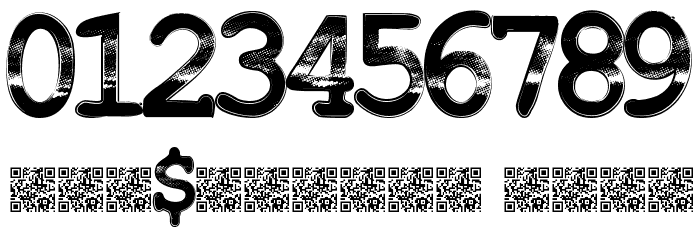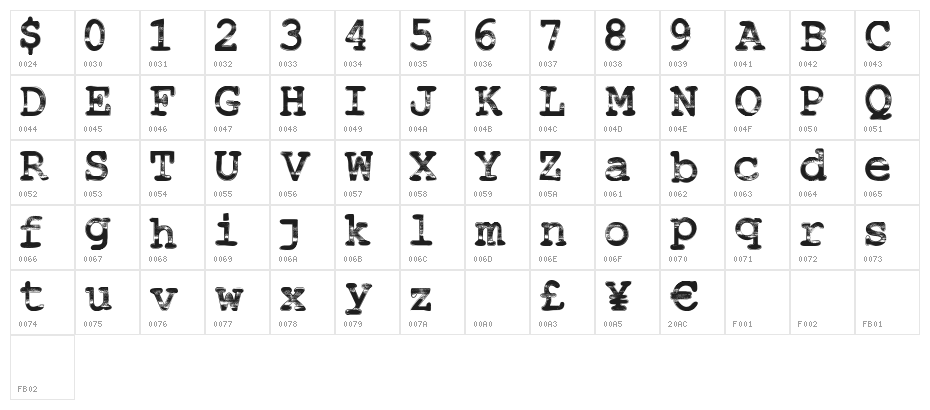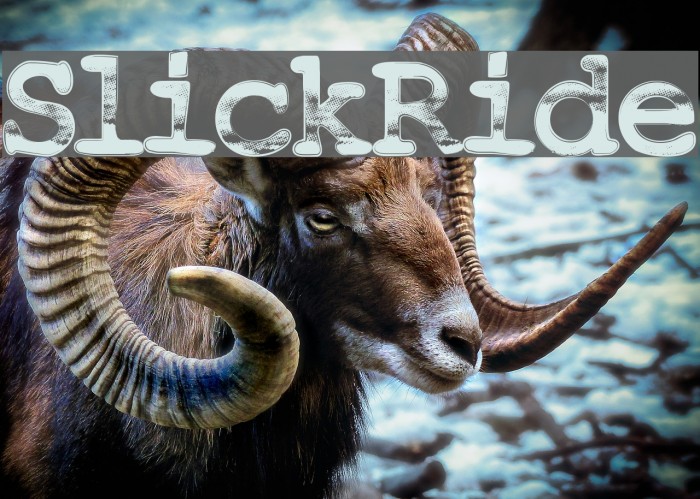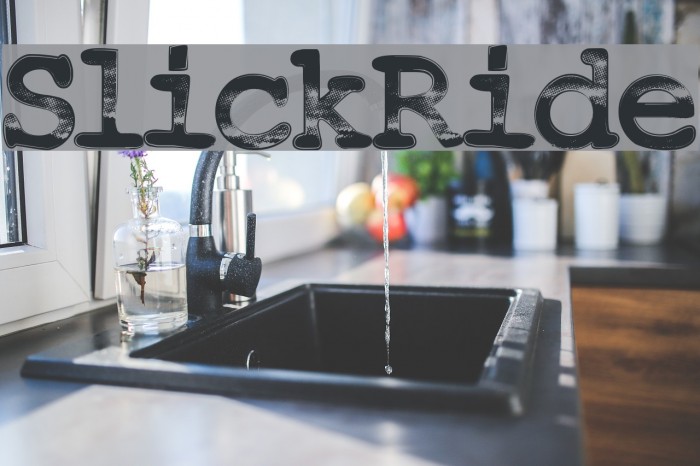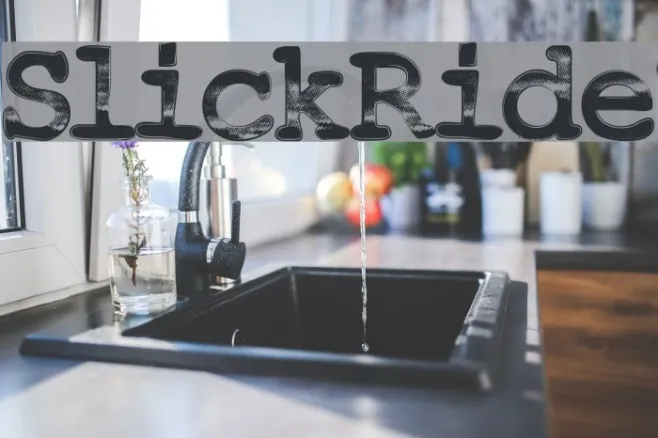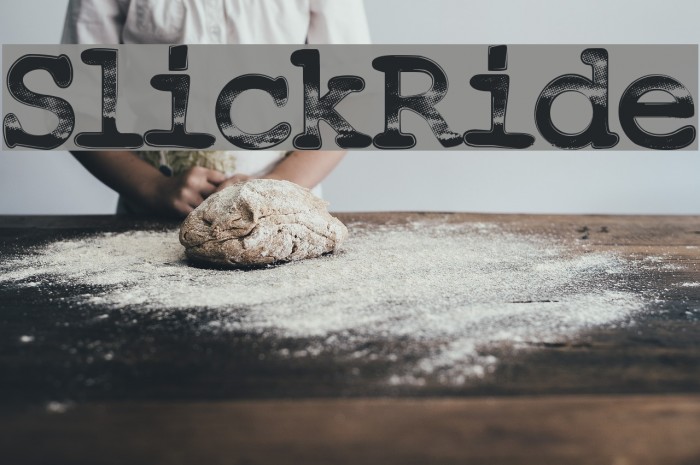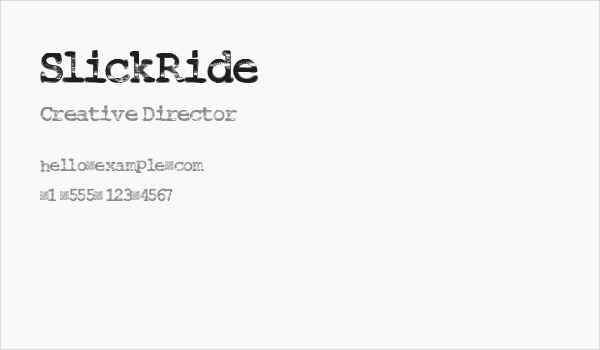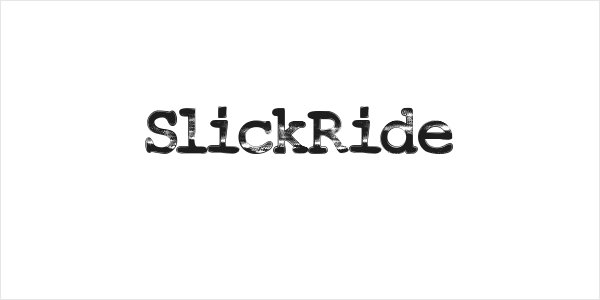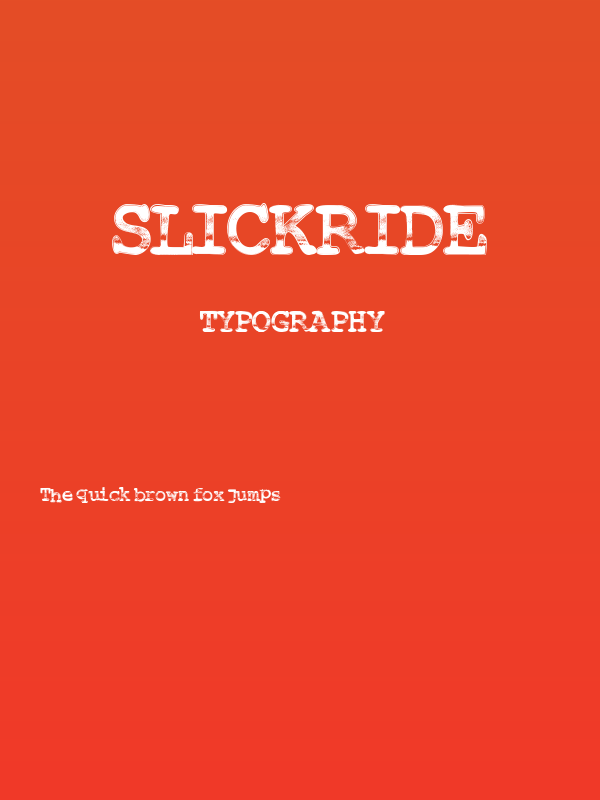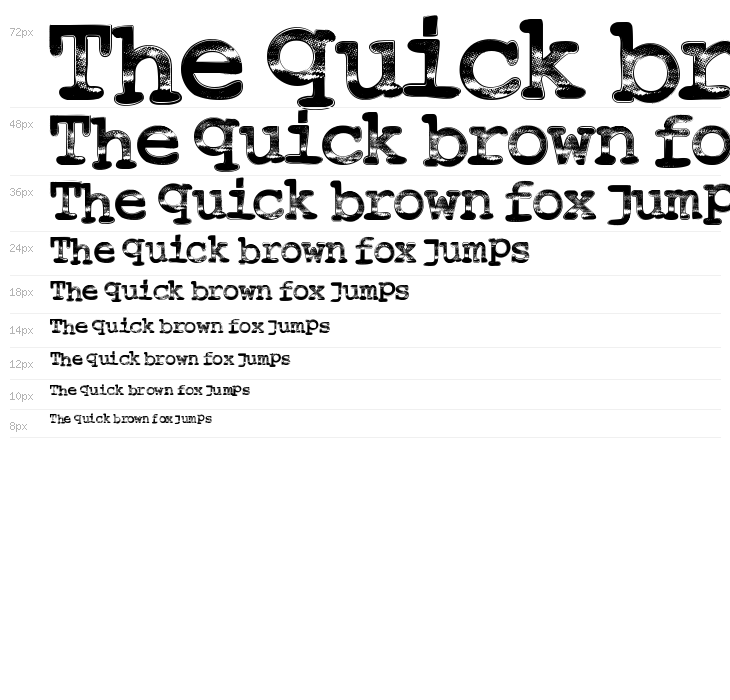
SlickRide Font
SlickRide Description
This font features a bold and decorative style with a distressed, textured appearance that gives it a vintage and rugged look. The characters are thick and heavy, with a consistent width and a slightly rounded edge that adds a touch of softness to the otherwise robust design. The uppercase and lowercase letters maintain a uniform style, while the numbers and special characters integrate seamlessly with the overall aesthetic. The distressed texture varies across the characters, providing a unique and dynamic visual interest. This font is ideal for projects that require a bold statement with a touch of nostalgia and character.
| Proposed Projects | Ideal for vintage-themed posters, logos, apparel designs, and branding materials that require a bold and textured look. |